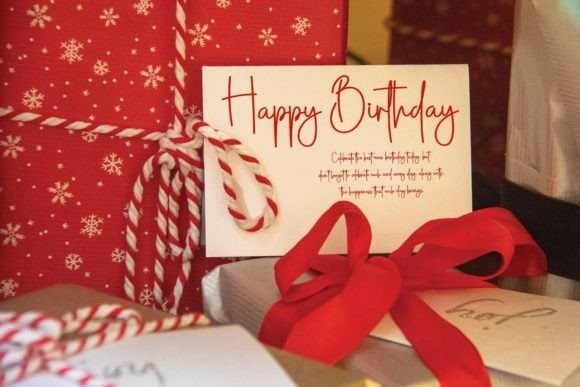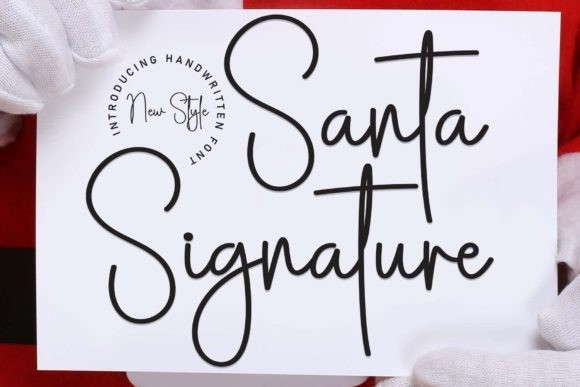
Santa Signature Script Font
Santa Signature Script Font is a charming handwritten font that captures the timeless elegance of Santa Claus’s signature. Its playful yet sophisticated style adds a touch of holiday magic to your designs, perfect for festive cards, gift tags, and more.